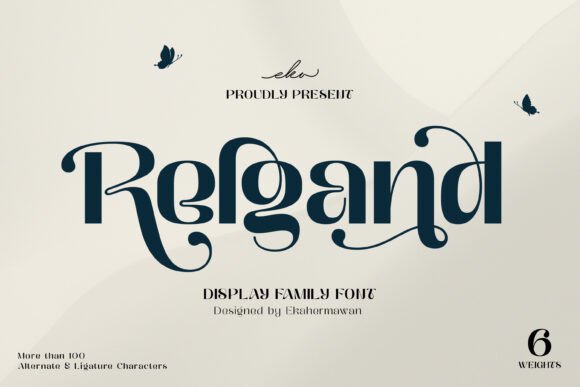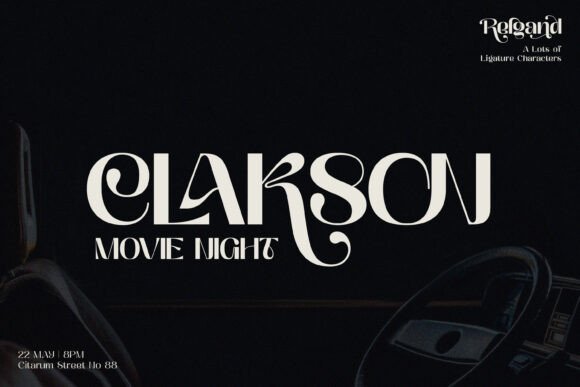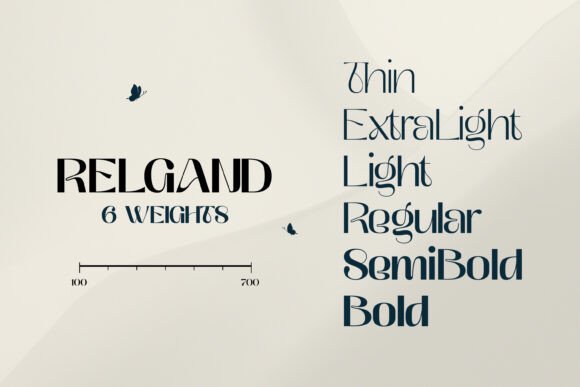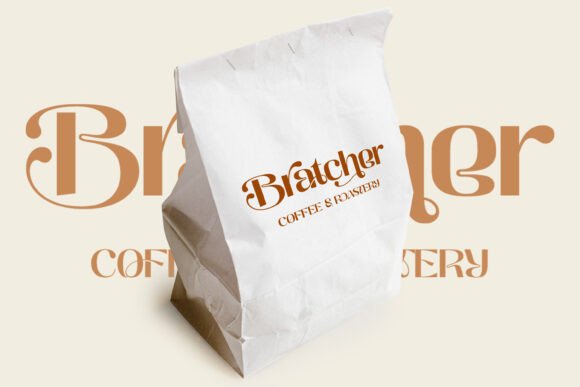
Relgand Font: Elegant Display Typography for Logo Design & Branding
About the Relgand Font
Get ready to be inspired by Relgand Font, a fresh and dynamic typeface for modern creators. Elevate your designs to new heights with Relgand, a meticulously crafted display font designed to leave a lasting impression. Ideal for instilling character and distinction into a wide range of projects, this versatile typeface is your ultimate creative companion. With its extensive set of alternative characters and ligatures, Relgand offers boundless customization options, allowing you to effortlessly create captivating typography that stands out from the crowd. Whether you’re designing logos, branding materials, posters, or social media graphics, this font provides the flexibility you need to make your designs truly unique.